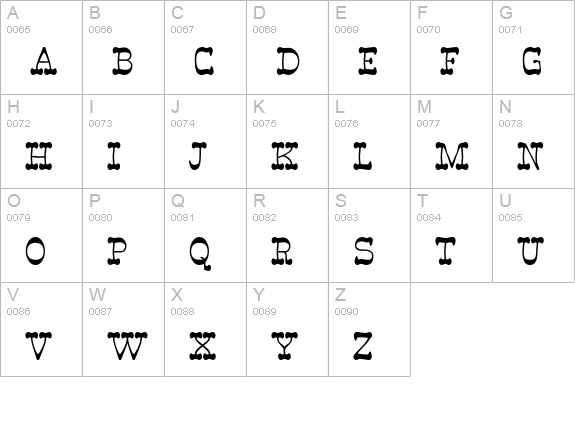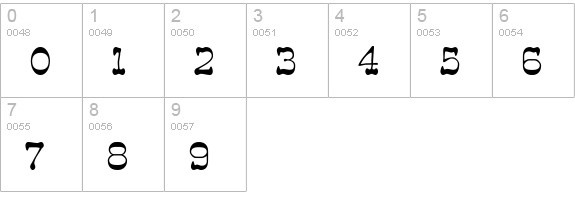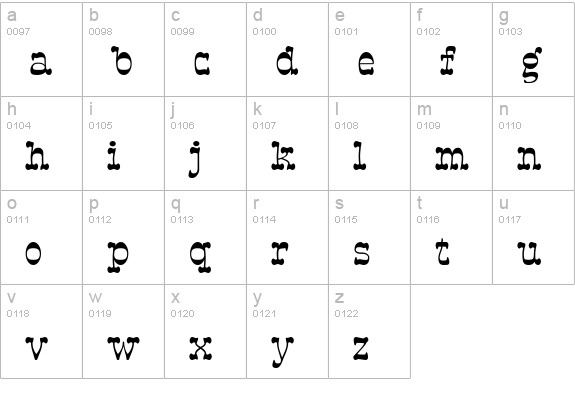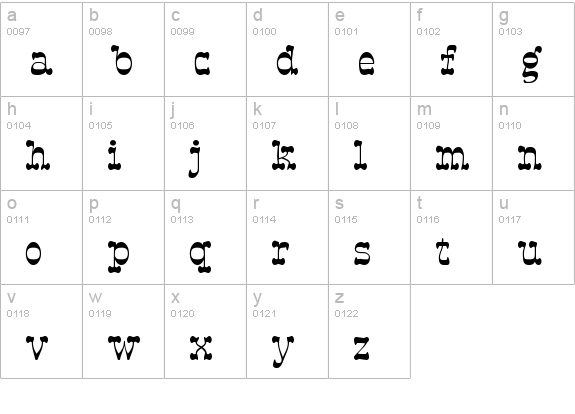
RoundUp font is a versatile and modern typeface that combines a sleek design with a touch of playfulness. With its rounded edges and bold appearance, this font is perfect for a wide range of design projects, from branding to packaging to social media graphics. What sets RoundUp font apart is not just its stylish look, but also its accessibility. This font is available for free download at FontsMarket.com, making it easy for designers and creatives to add a unique and eye-catching touch to their work without breaking the bank. Whether you're looking to create a fresh and contemporary logo or want to give your website a fresh new look, RoundUp font has got you covered. Download it today and start adding a modern twist to your designs!